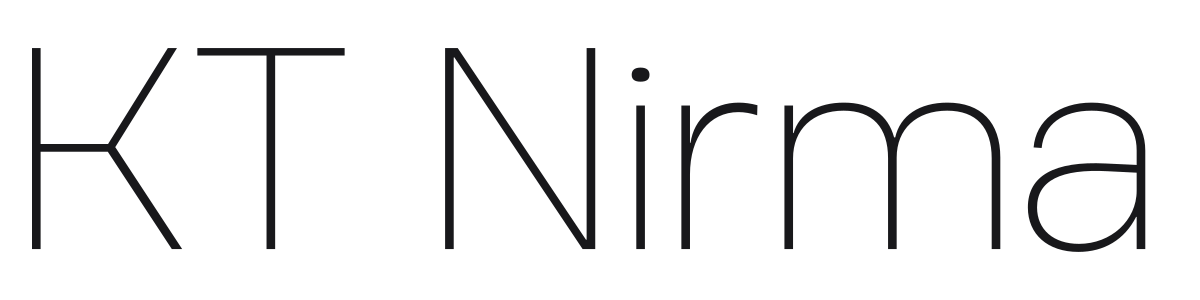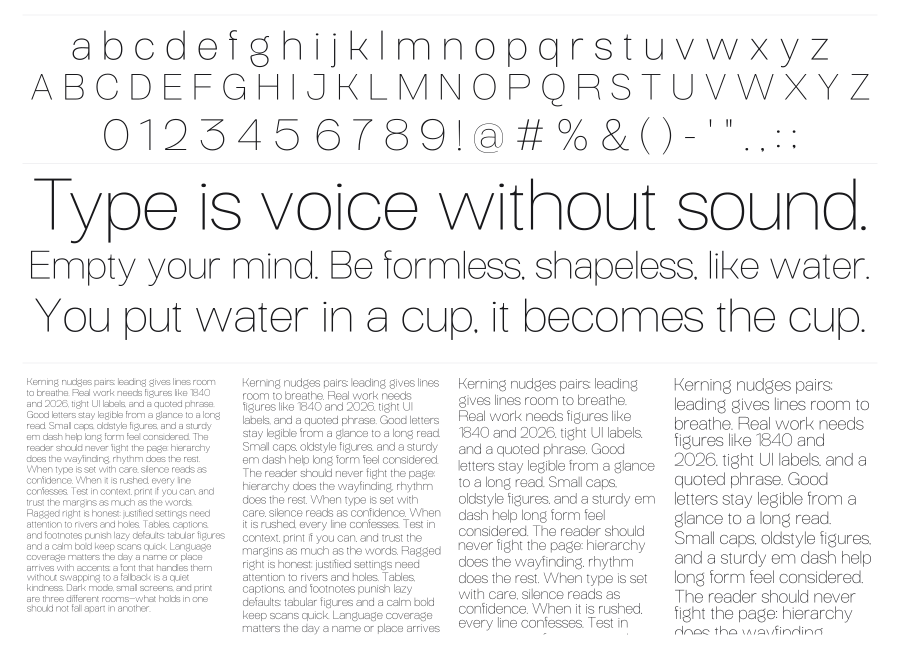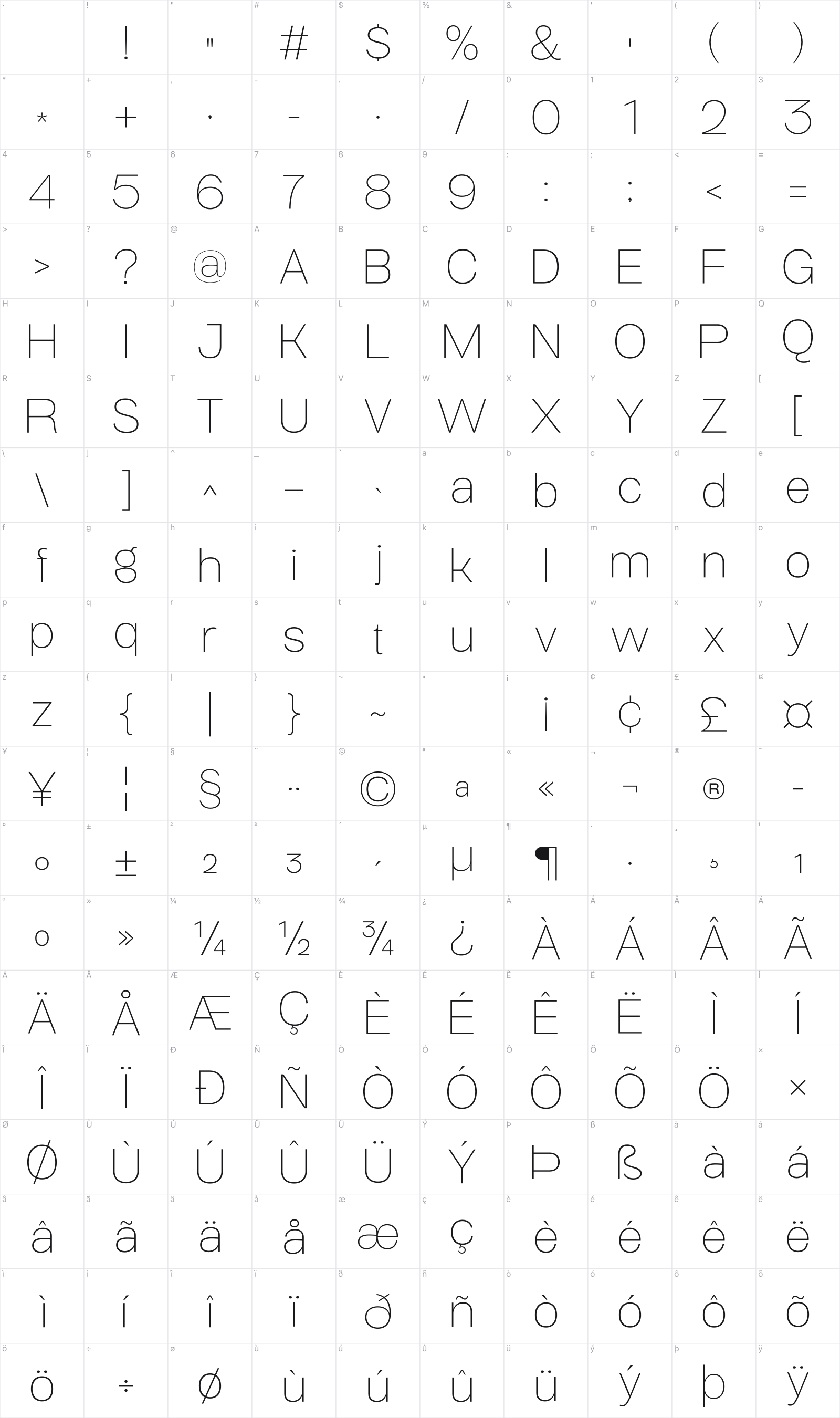
KT Nirma
by Meithey
KT Nirma is a nine-weight grotesque sans inspired by Founders Grotesk, spanning from a hairline-thin to an assertive black. The lighter weights bring airy legibility to body text while the heavier cuts shift into confident display territory. With 462 glyphs and support for over 200 languages, it covers a wide range of typographic needs in a single cohesive family.